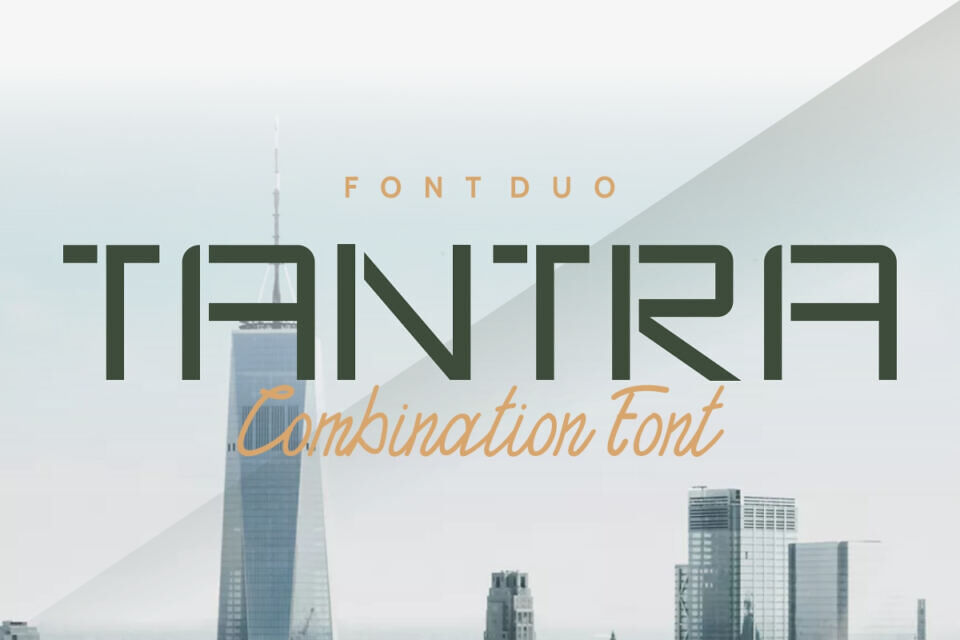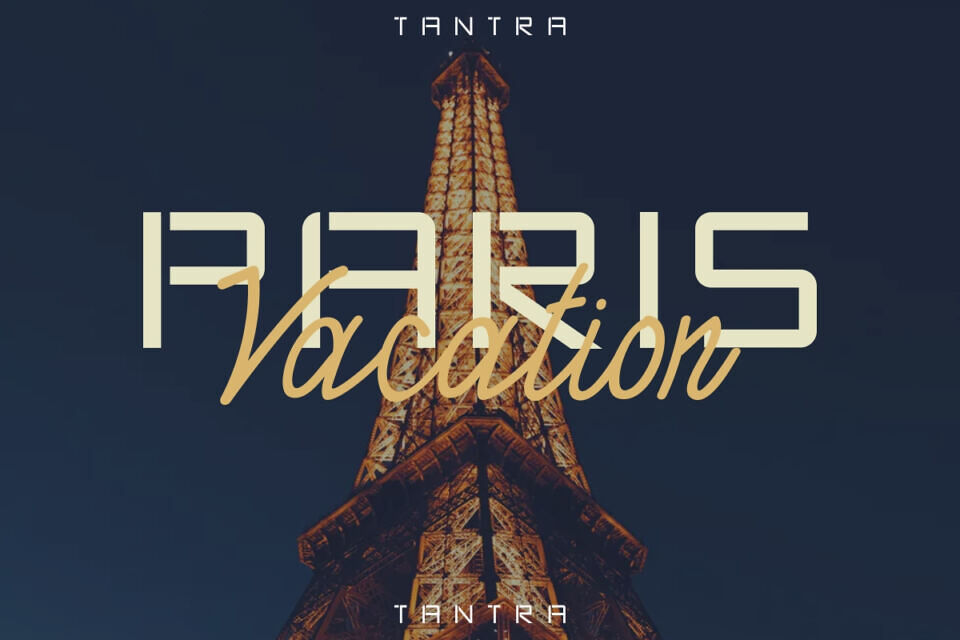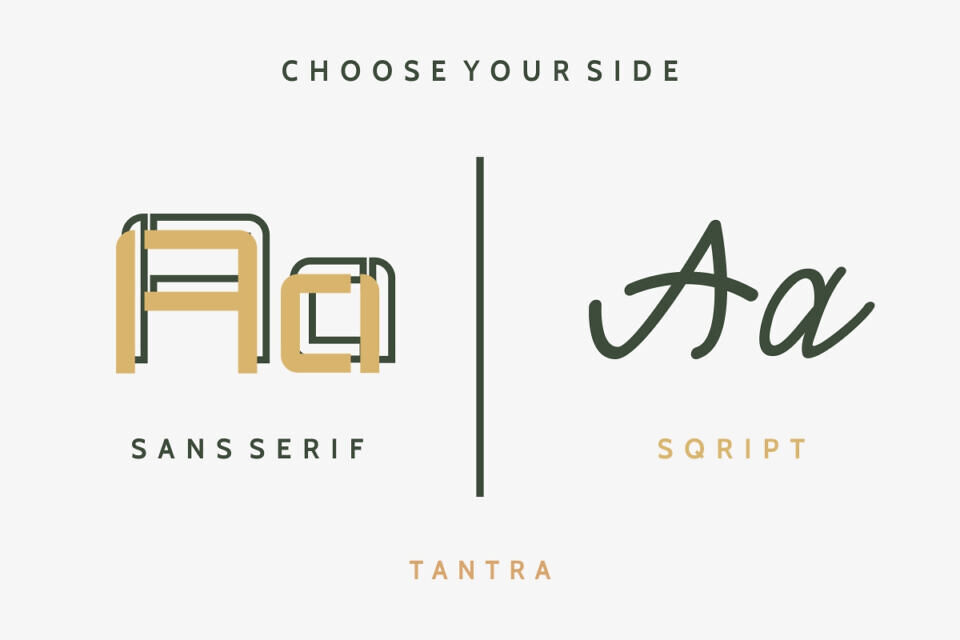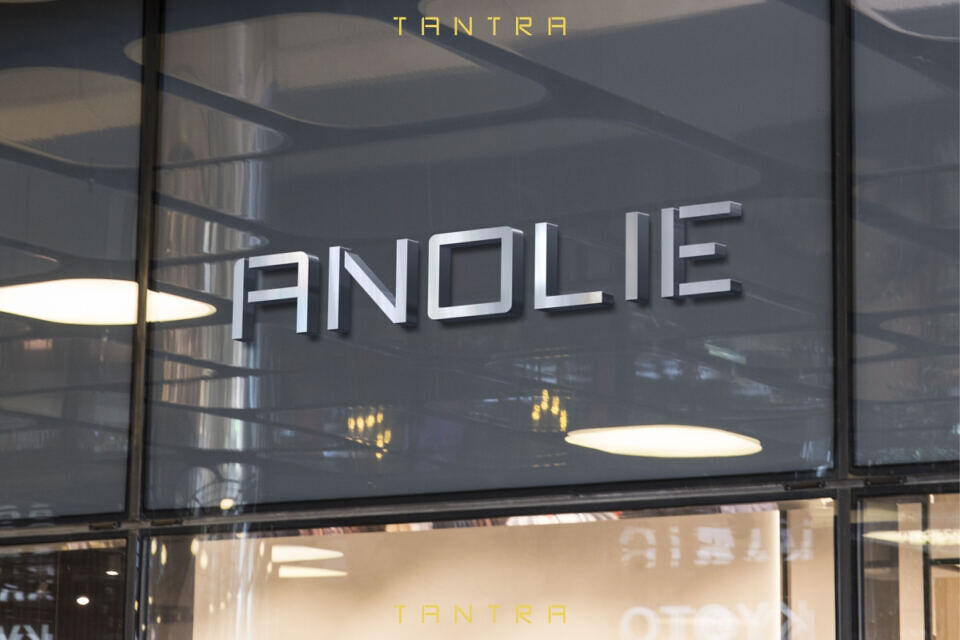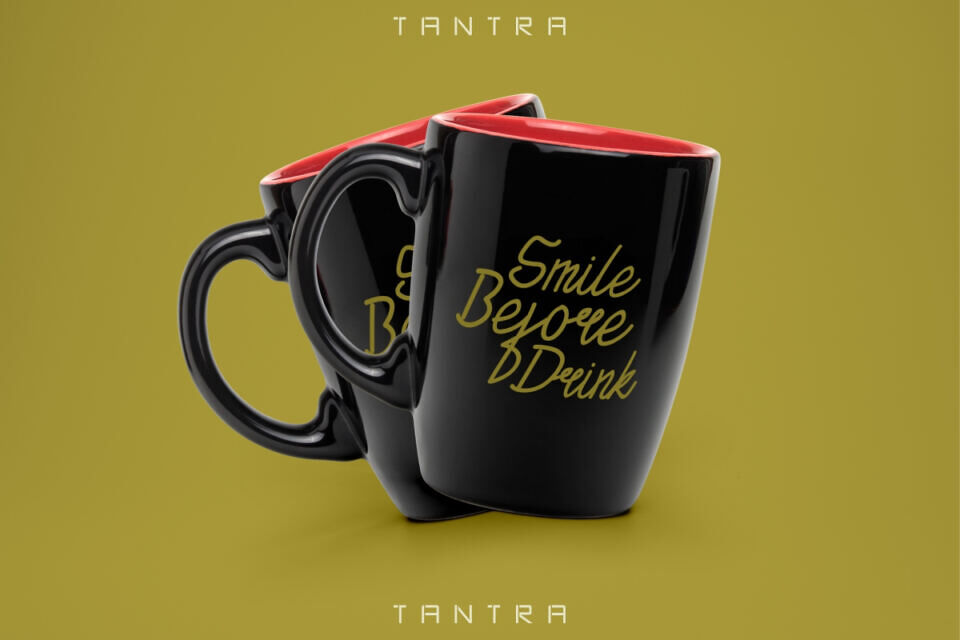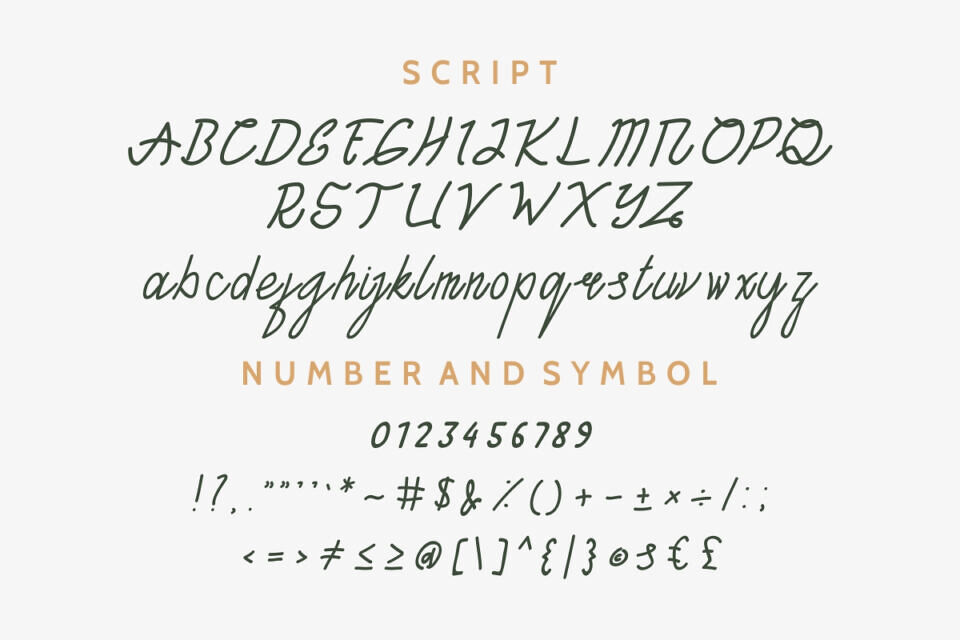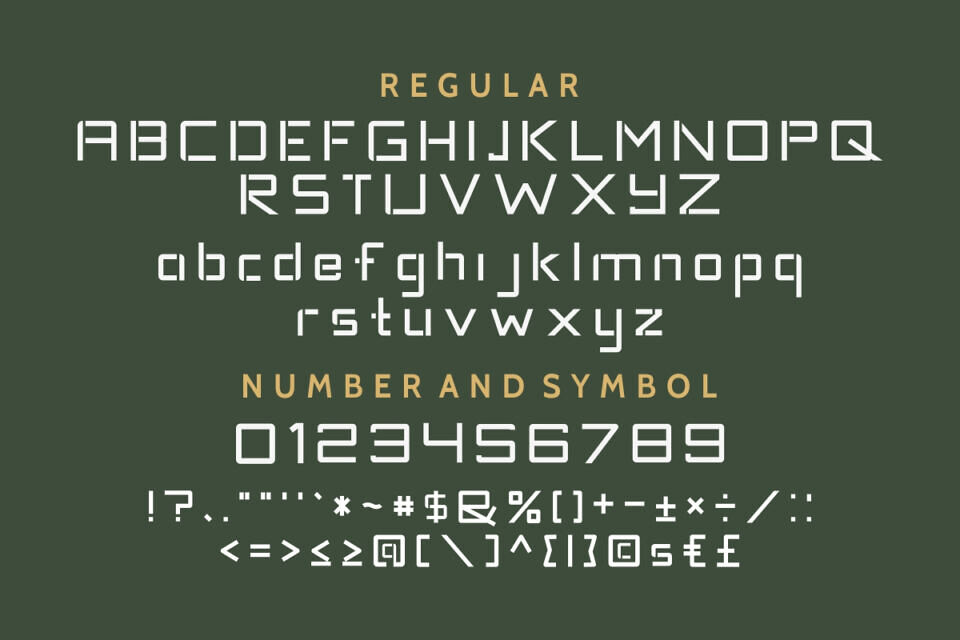
Tantra Font
Tantra “Trio” is a versatile font family combining three distinct styles: a bold sans serif, an elegant script, and a modern outline. The clean, geometric sans delivers a strong and professional look, while the flowing script adds a refined, personal touch. The outline style introduces a sleek, contemporary accent for creative layering.
Perfect for branding, logos, invitations, and marketing materials, it blends modern minimalism with classy sophistication, making it suitable for a wide range of design projects.